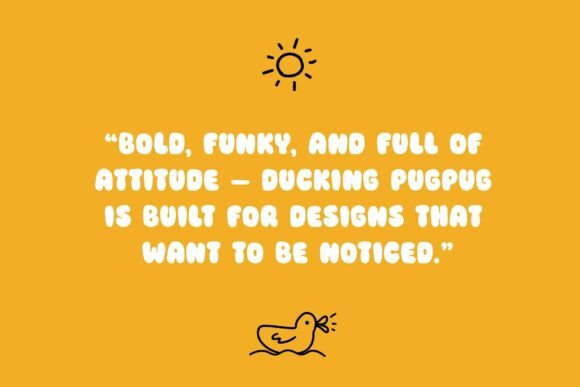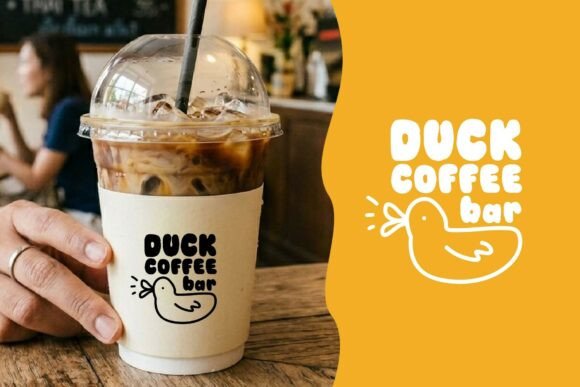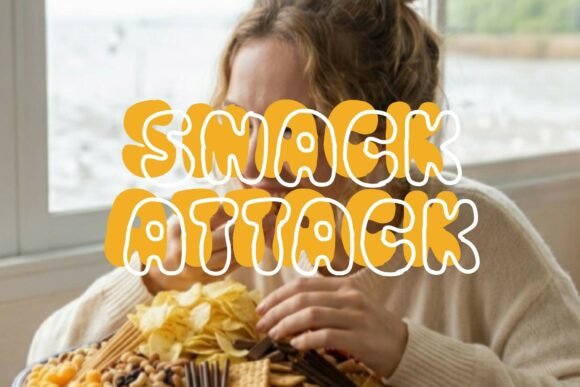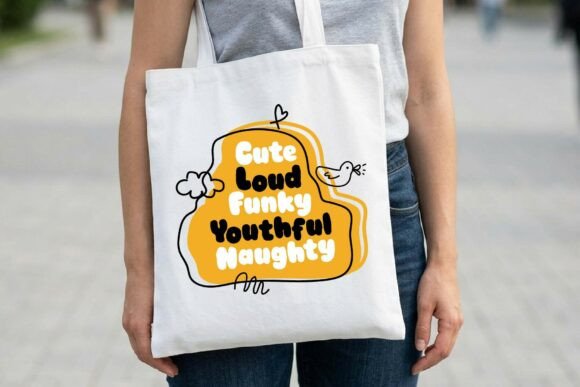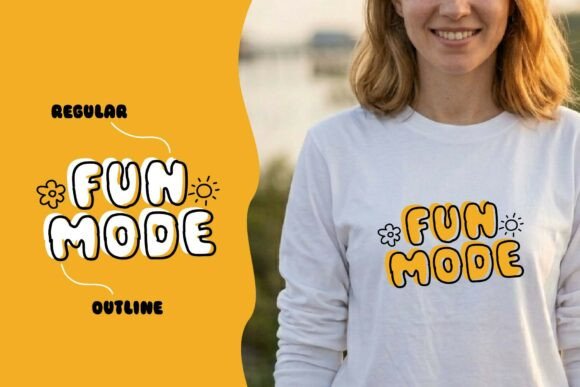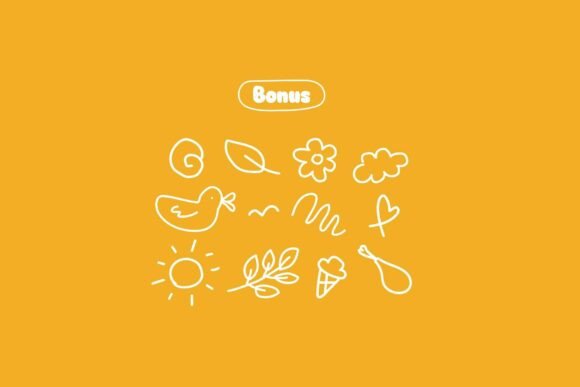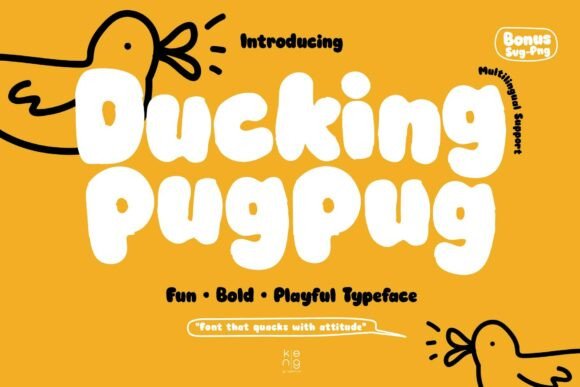
Unleash Your Creativity with Ducking Pugpug Font
Welcome to the world of Ducking Pugpug, a spirited and vibrant display font that is intrinsically dancing with an idiosyncratic flair and distinct magnetism. This carefully designed font is set to captivate and bring a breath of fresh life to everything it touches, from packaging designs and urban fashion ventures to dominant social media platforms, eye-catching poster narratives, and captivating branding notions.
The Unique Charm of Ducking Pugpug
Ducking Pugpug is not just a font; it’s an experience. Its dynamic appeal is crafted to ignite your creative spark unrestricted, making it the perfect companion for designers and crafters looking to infuse their projects with a dash of personality and flair. Whether you’re working on a bold branding campaign, a trendy fashion line, or a compelling social media story, Ducking Pugpug is designed to make your message stand out in a crowded digital landscape.
One of the standout features of Ducking Pugpug is its versatility. This font isn’t limited to just one type of project; it’s incredibly adaptable and can be used across a wide range of mediums. Here are some of the areas where Ducking Pugpug can make a significant impact:
- Packaging Designs: Make your product packaging pop with Ducking Pugpug. Its vibrant and spirited nature can turn any ordinary packaging into a statement piece that stands out on store shelves.
- Urban Fashion Ventures: Infuse your fashion designs with a trendy and contemporary vibe. Ducking Pugpug’s distinct magnetism can add a unique touch to your fashion brand, making it more appealing to fashion-forward audiences.
- Social Media Platforms: In the digital age, social media presence is crucial. Ducking Pugpug can help you create eye-catching posts and stories that capture attention and engage your audience more effectively.
- Poster Narratives: Whether it’s for an event, a promotion, or an informational campaign, Ducking Pugpug can help you create posters that are not only visually appealing but also convey your message with impact.
- Branding Notions: Establish a strong brand identity with Ducking Pugpug. Its unique flair can be a key element in creating a brand image that resonates with your target audience.
Why Choose Ducking Pugpug?
Choosing Ducking Pugpug for your design projects comes with numerous benefits. Here are a few reasons why designers and crafters are gravitating towards this spirited font:
- Unique Aesthetic: Ducking Pugpug offers a fresh and distinctive aesthetic that can set your projects apart from the competition.
- High Versatility: Its adaptability across various mediums makes it a valuable addition to any designer’s toolkit.
- Easy to Read: Despite its stylized appearance, Ducking Pugpug maintains a level of readability that ensures your message is communicated effectively.
- Customizable: The font is designed to be easily customizable, allowing you to tweak it according to your project’s specific needs.
Ducking Pugpug is more than just a font; it’s a creative tool designed to bring a spark of uniqueness to your projects. Its spirited and vibrant nature, combined with its versatility and distinct magnetism, makes it an invaluable asset for designers and crafters looking to make a statement. So, why wait? Wield the dynamic appeal of Ducking Pugpug to ignite your creative spark unrestricted and take your designs to the next level.